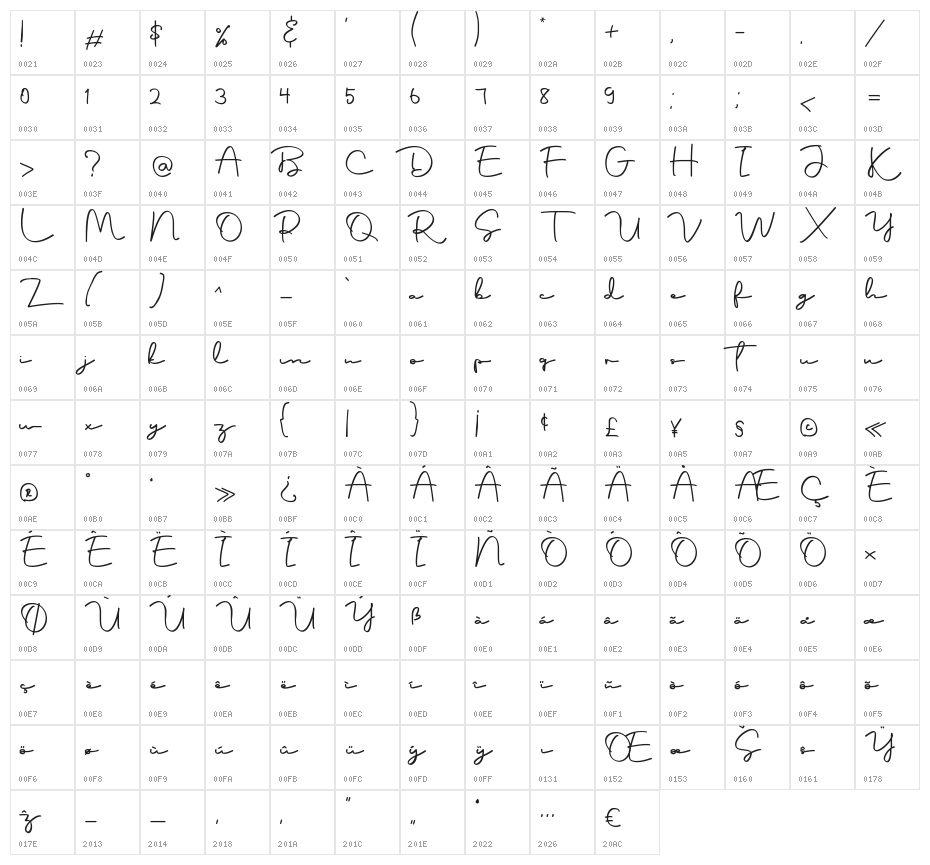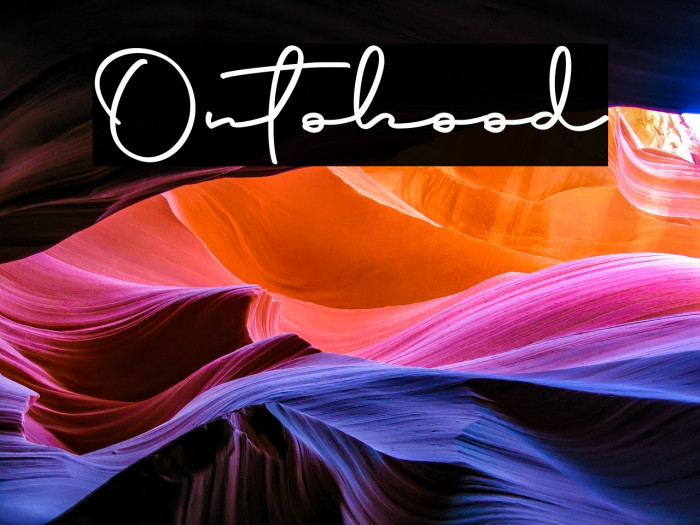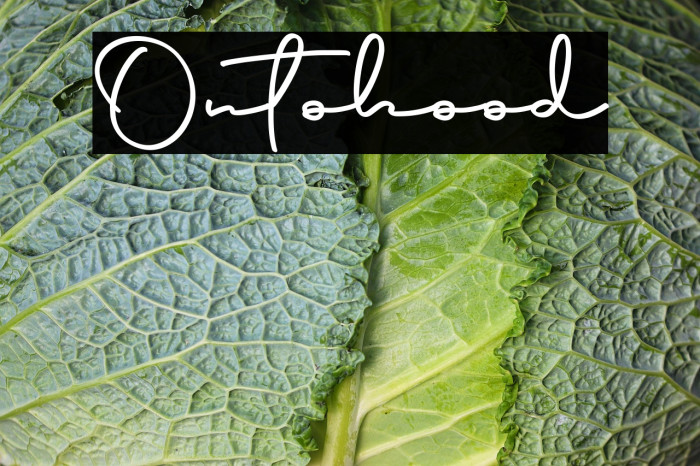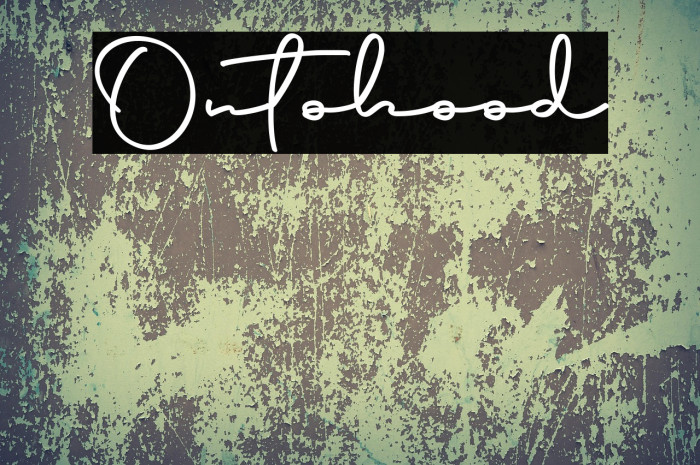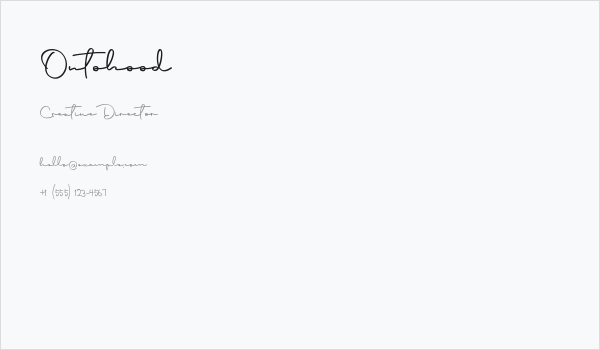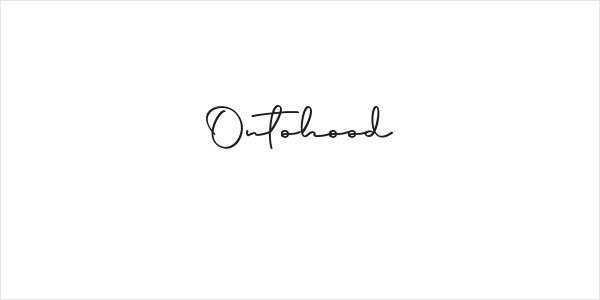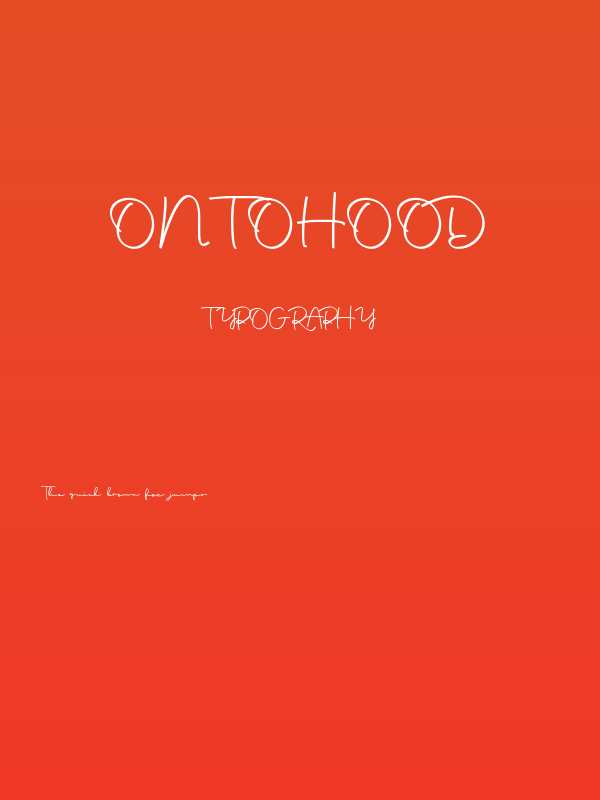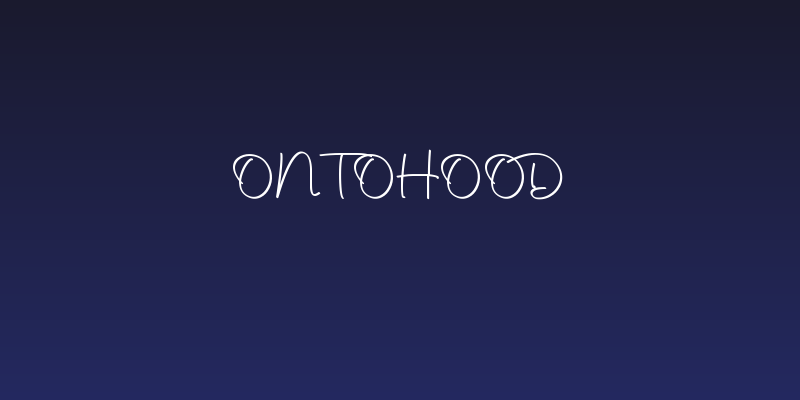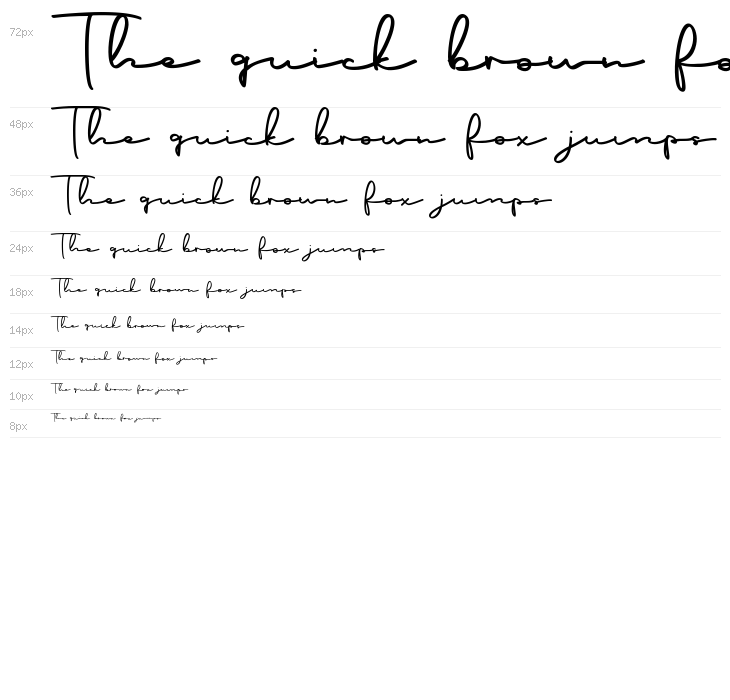
Ontohood Font
Ontohood Description
This font features a playful and dynamic handwritten style, characterized by its fluid and continuous strokes. The uppercase letters are bold and slightly irregular, giving a sense of spontaneity and creativity. The lowercase letters maintain a consistent flow, with some letters extending below the baseline, adding to the font's casual and approachable feel. The numerals are clear and legible, complementing the overall aesthetic. Special characters are uniquely styled, maintaining the handwritten theme. This font is ideal for projects that require a personal touch, such as invitations, greeting cards, or creative branding.
| Overall Style | Casual, Creative |
| Proposed Projects | Ideal for invitations, greeting cards, creative branding, and personal projects. |